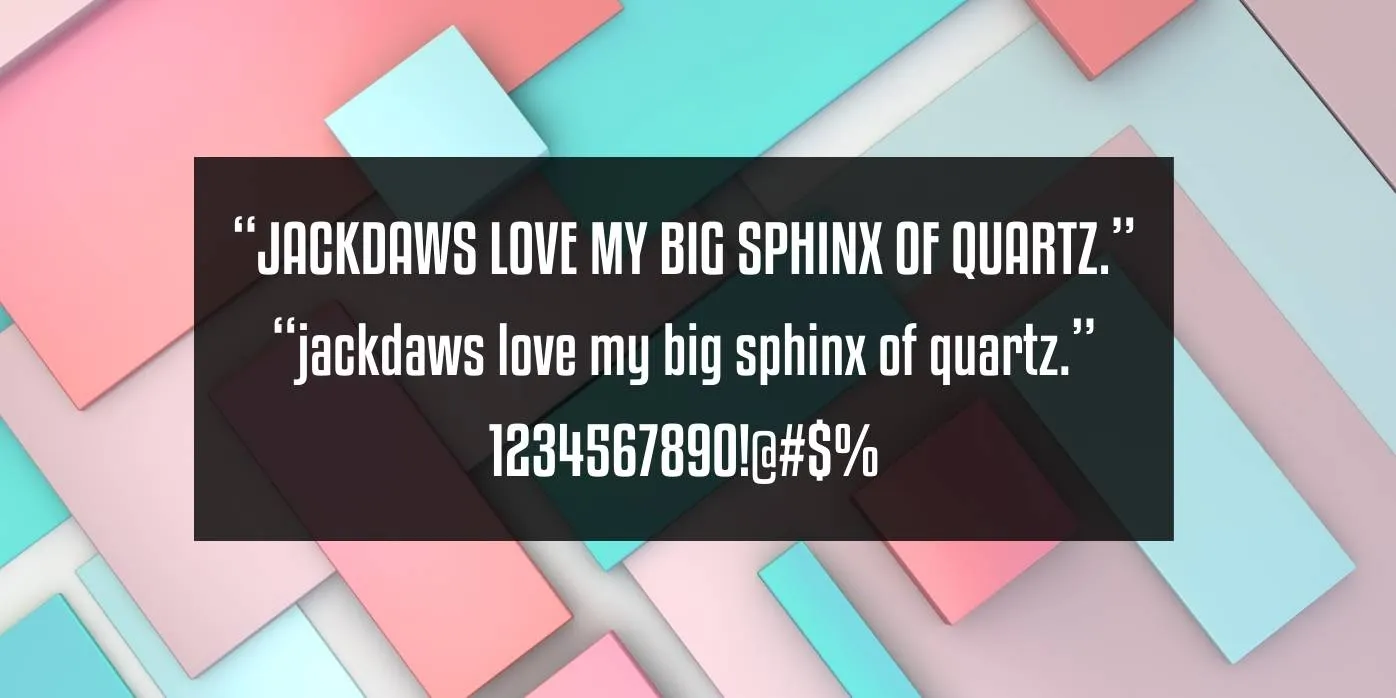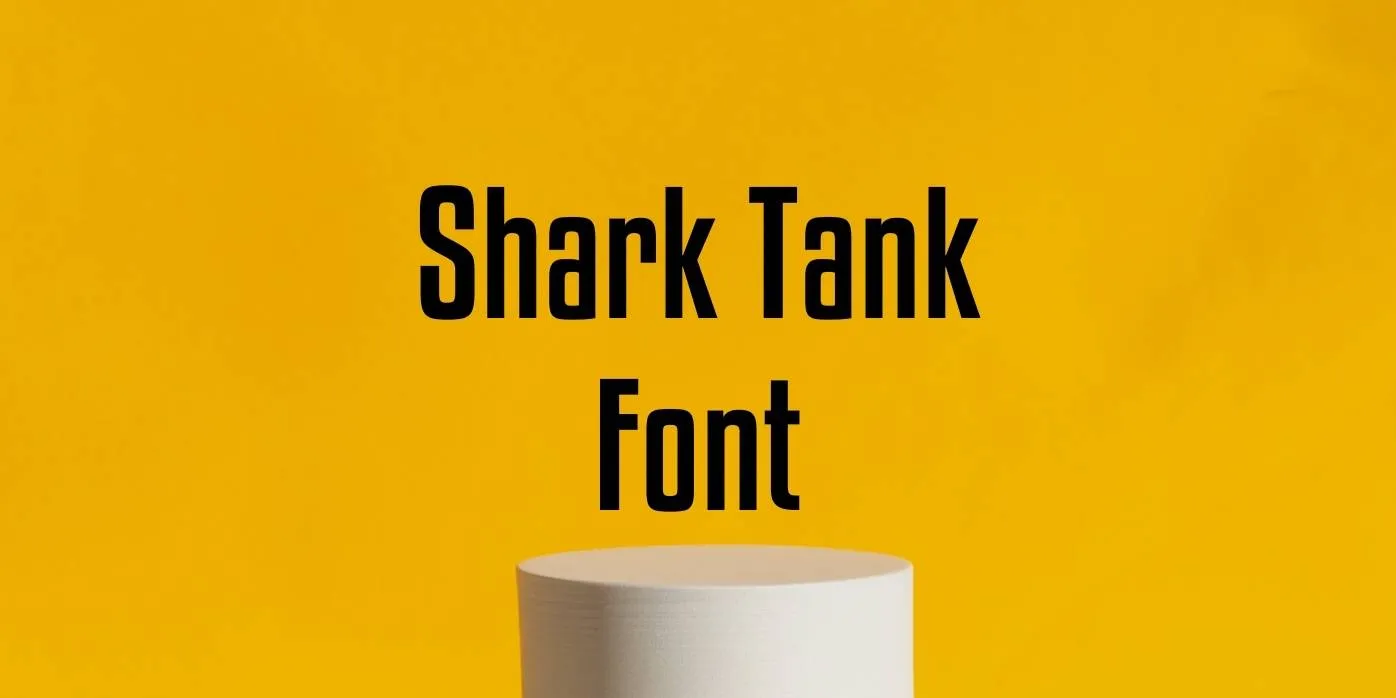
Shark Tank Font
In this article, we introduce a stylish typeface named Shark Tank Font. This family was developed and published by Mark Simonson Studio. This typeface belongs to the sans serif family. This typeface is used for the CSS and HTML languages.
It is a reality television show in which entrepreneurs pitch their business ideas to a panel of investors, known as “sharks.” The show has been credited with helping to launch the careers of many businesses and entrepreneurs. Its copy and paste function is very helpful for all textual design projects. For more classic features, you will have to use its alternative solomon font which has the same features. The Shark Tank Typeface is a stylish typeface that was created specifically for the show.
It is a sans serif typeface that is inspired by the classic Futura typeface. This font is perfect for any project that needs a modern and stylish look. Here, a more classic feature of this family is its generator tool.